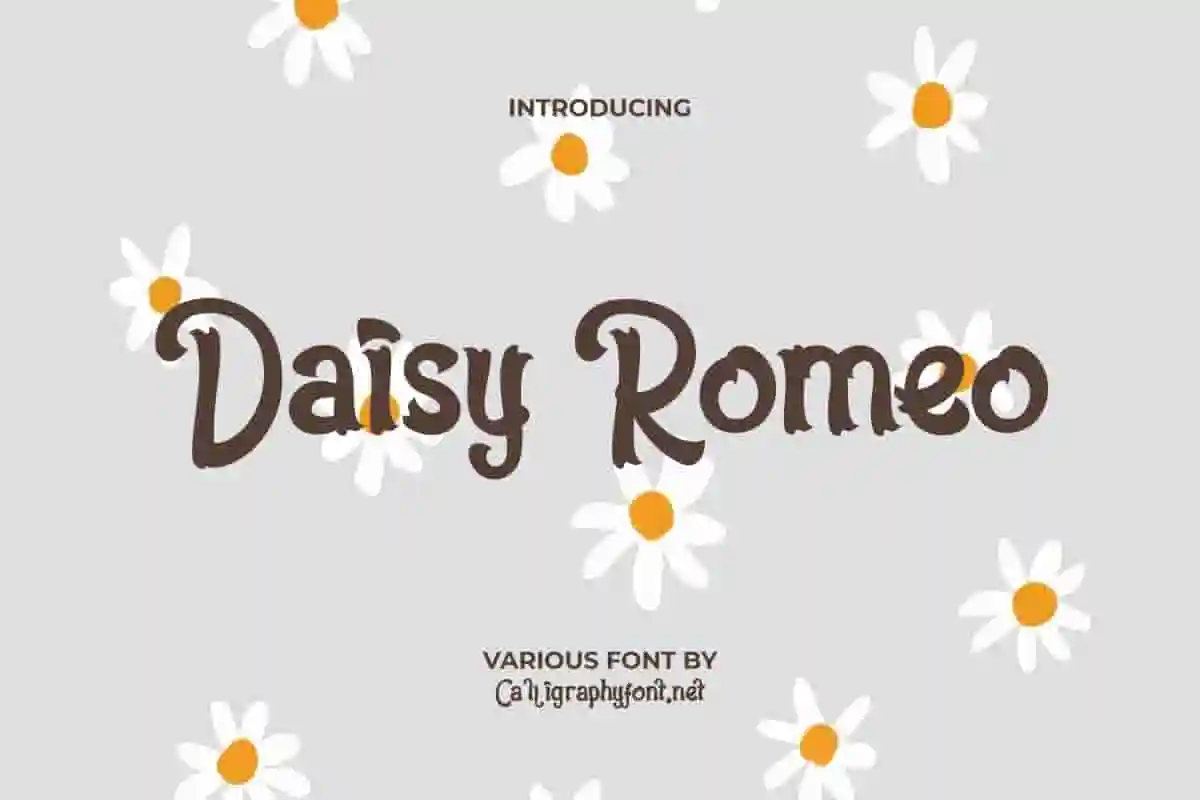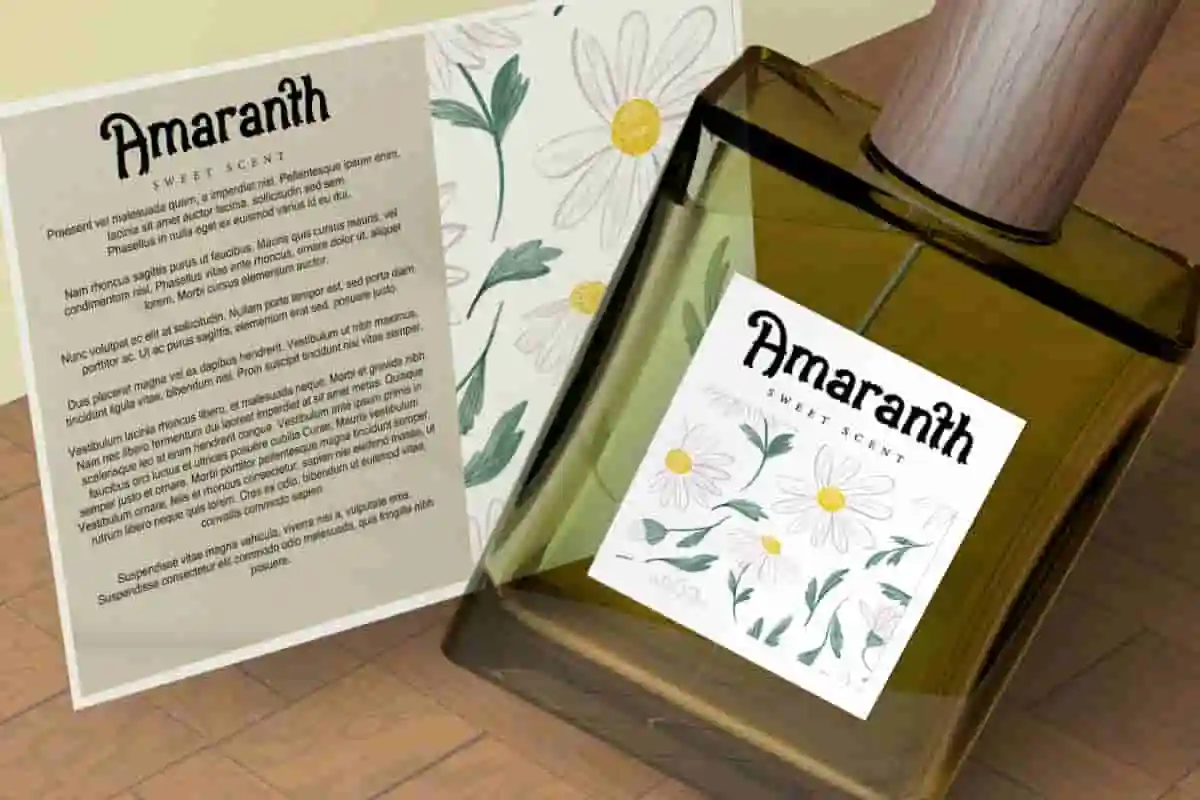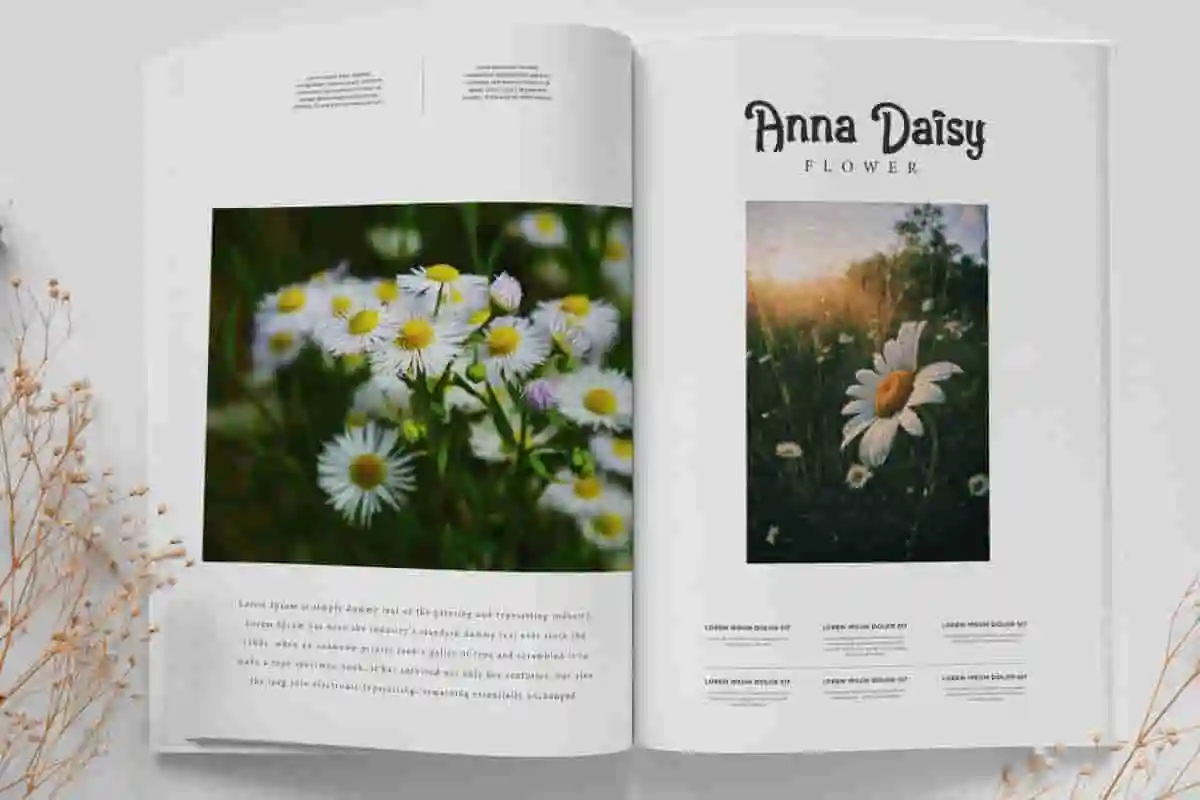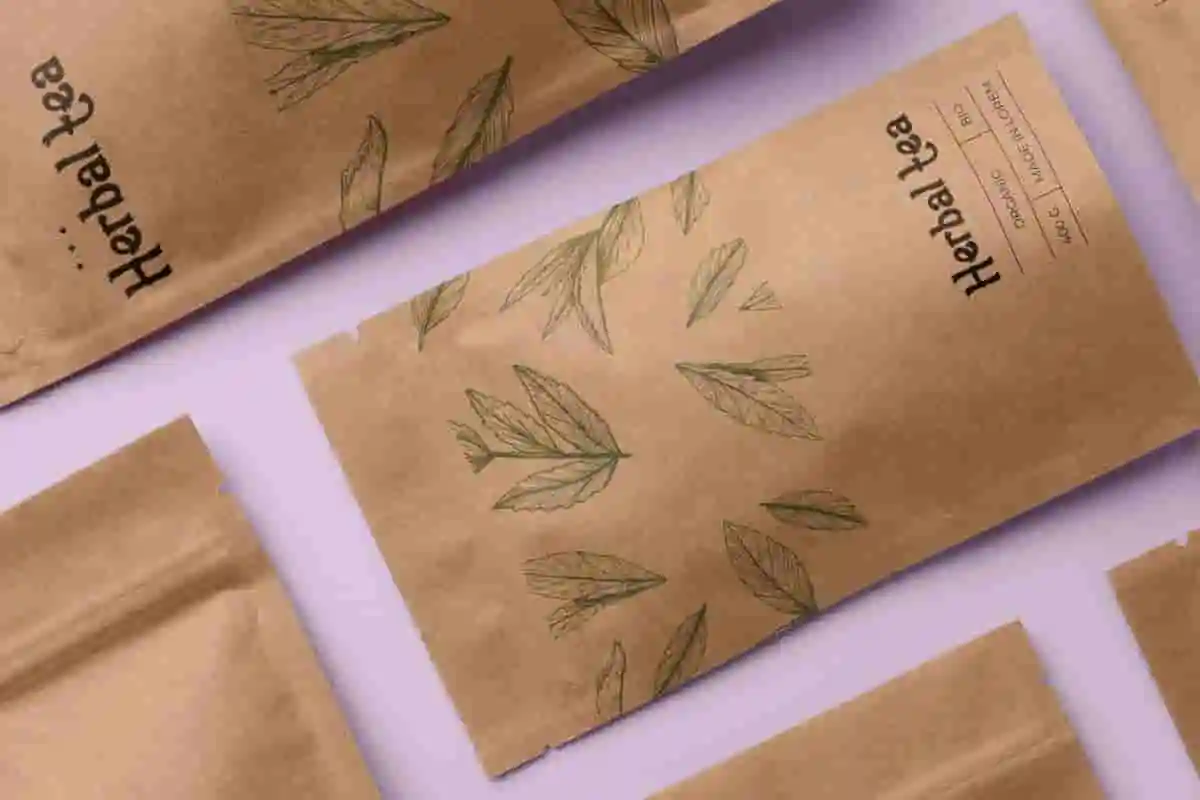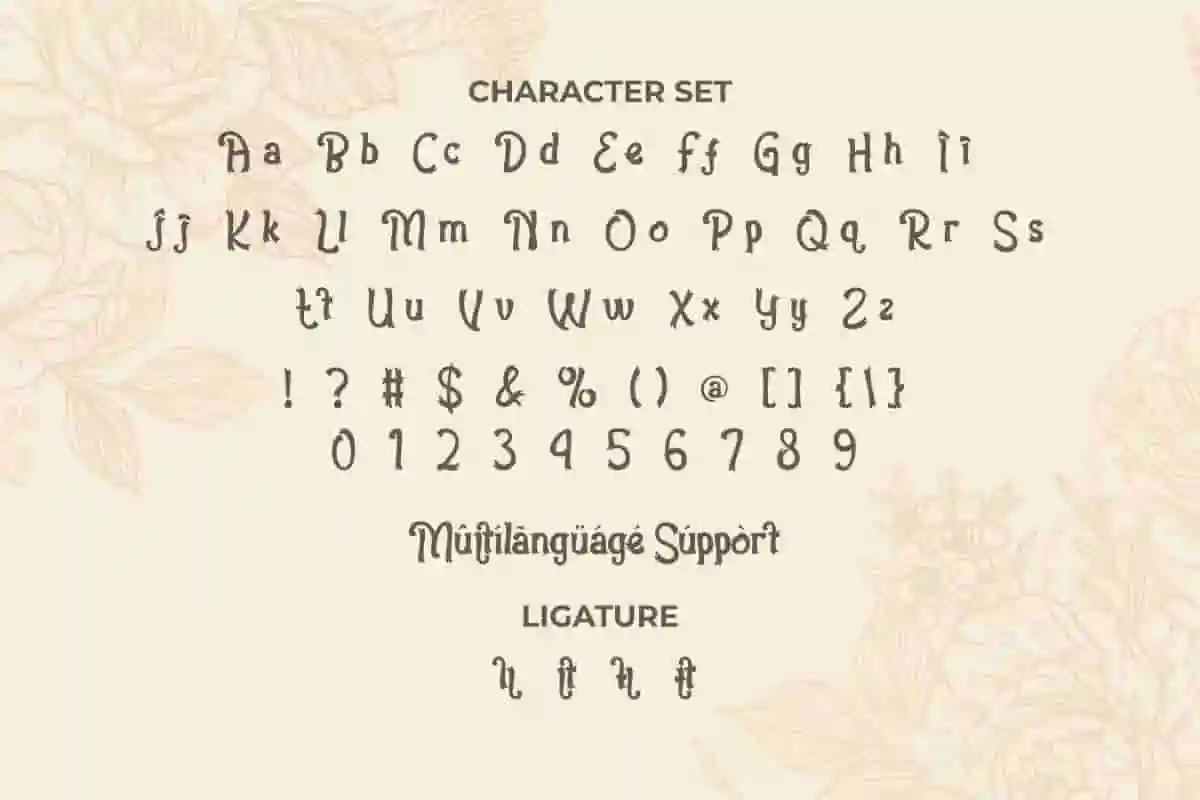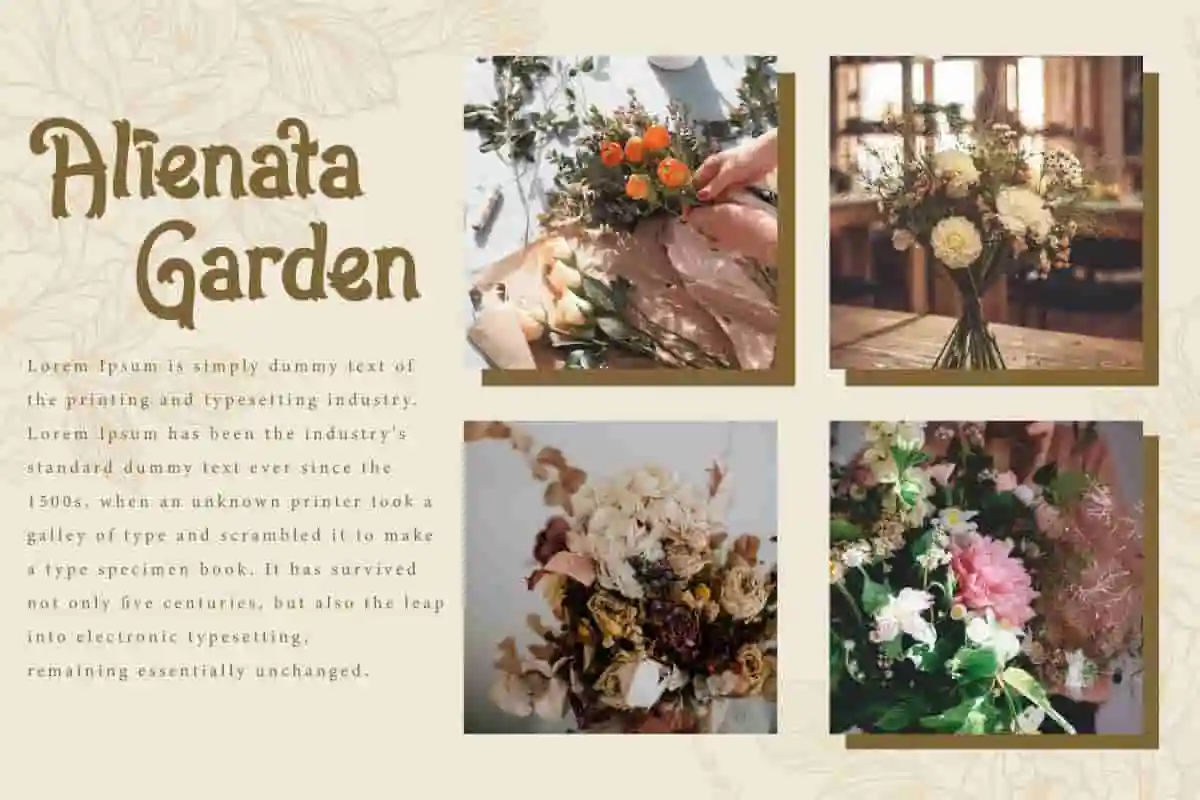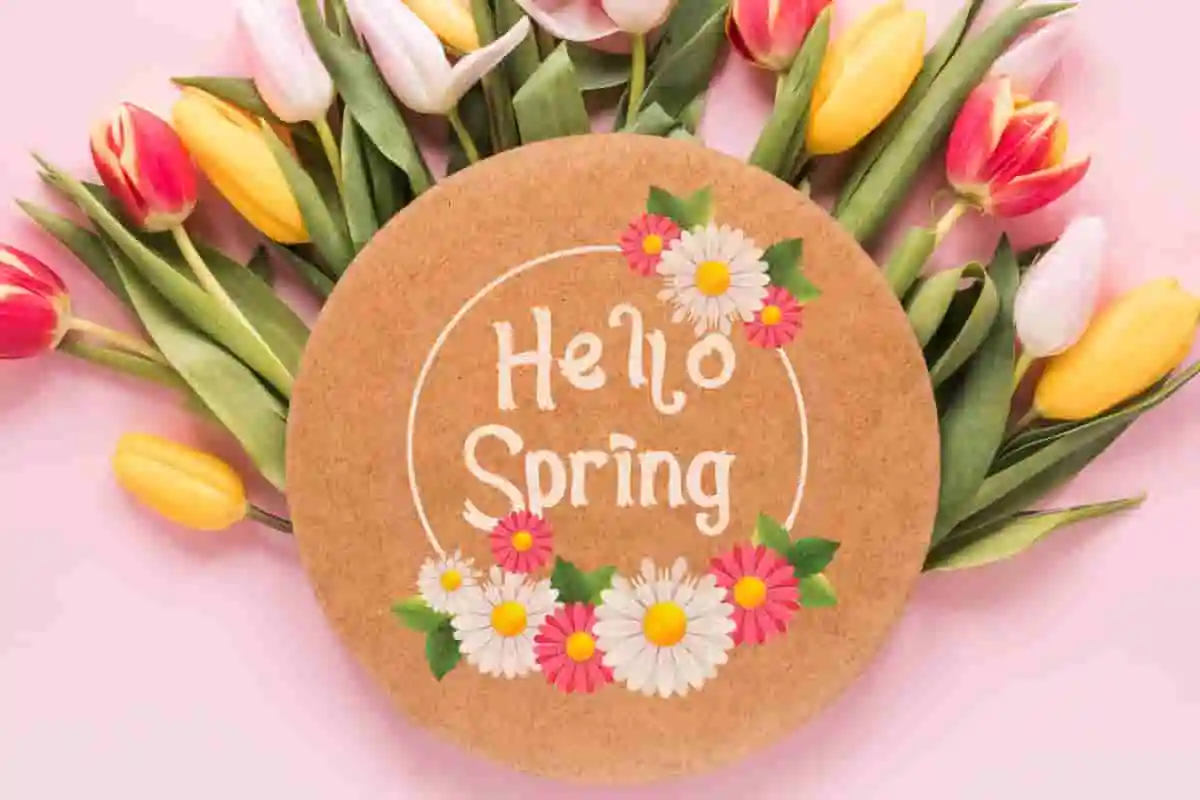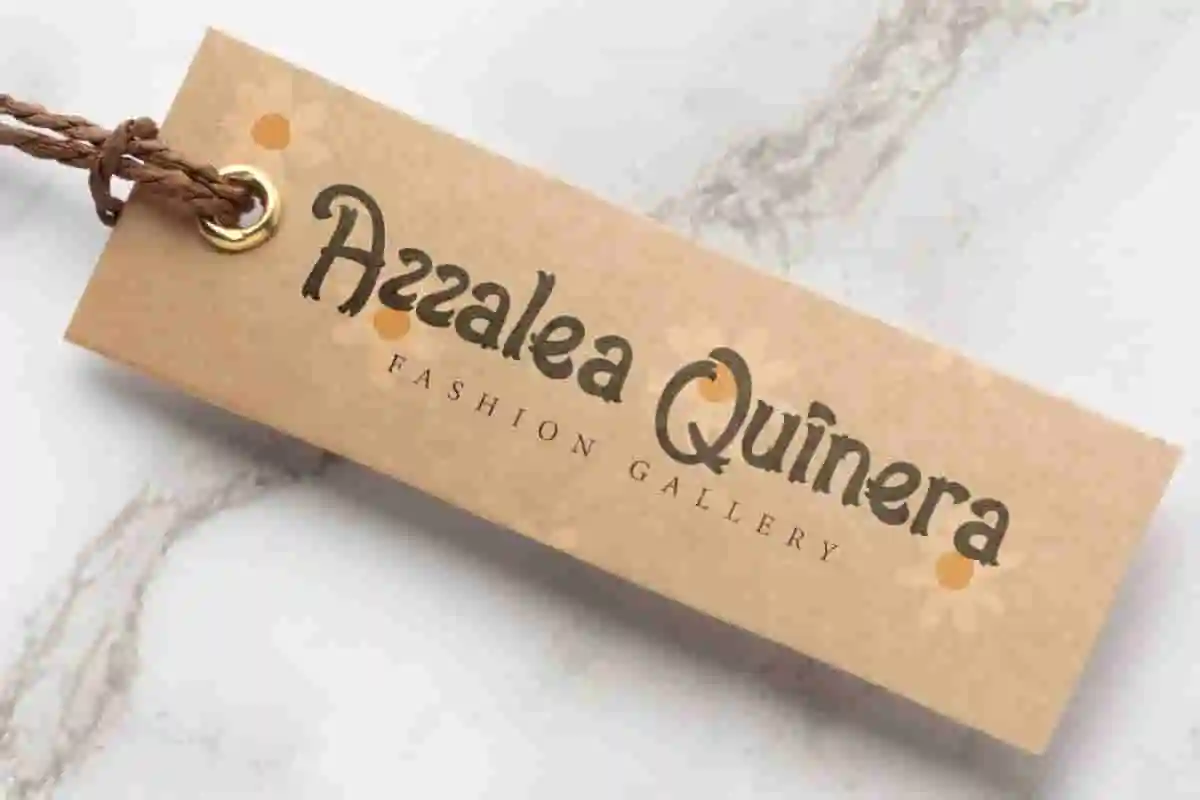
Daisy Romeo Display Font
Daisy Romeo Font is a creative beautiful curly decorative font inspired from beautiful flowers and plants that will make you fall in love. It will work fine for florist, labels, cricut, perfumer, stationery, sticker, website, etc.
Daisy Romeo Font is a beautiful curly display font. It has unique brush strokes like a fancy western typeface, giving it a awesome curly shape that suits any industry, such as accessories, advertisement, artist, botany, clothing brand, event or festival, fashion designer, florist, handicrafts, homeware, perfumer, printing, publishing, tea farmer, writer, and many more.
Introducing the Daisy Romeo Display Font, a vibrant and stylish display font designed to make your projects pop! With its playful curves and strong presence, this font is perfect for creating eye-catching headlines, branding, packaging, and social media content. Whether you’re designing logos, posters, invitations, or product labels, Daisy Romeo delivers a fresh and modern look that grabs attention instantly.
Brighten your creative projects with the Daisy Romeo Display Font, a beautifully crafted font that combines elegance with playful charm. This display font is perfect for designers who want to create bold, memorable headlines and captivating branding materials. With its smooth curves and modern style, Daisy Romeo stands out effortlessly on invitations, packaging, social media posts, and fashion branding.
Step up your design game with the Daisy Romeo Display Font, a dynamic and stylish font crafted to bring energy and personality to your creative projects. This display font blends bold shapes with elegant curves, making it perfect for standout headlines, branding, packaging, and social media graphics.
- Bold & Playful Design
- Versatile Use
Daisy Romeo Font is a unique typography adapted from the beautiful daisy flower that is able to provide a different and standout look that will blend beautifully into your creative projects, such as billboard, brand logo, brochure, catalog, cover, greeting card, header, label, mockup design, product packaging, poster, price tag, screen print, signage, stationery, sticker, title, watermark, website, etc.
Daisy Romeo Font comes with a full set of Uppercase and Lowercase Characters, Number, Punctuation and Symbol. Also having some Ligature characters and this font will be ready to use both on Windows machine or Mac with simple installations. It’s tested to work well in the Adobe Apps (Illustrator, Adobe InDesign, Adobe Photoshop) CorelDraw, and others. PUA Encode Characters means you can access all characters easily – Fully accessible without additional design software.